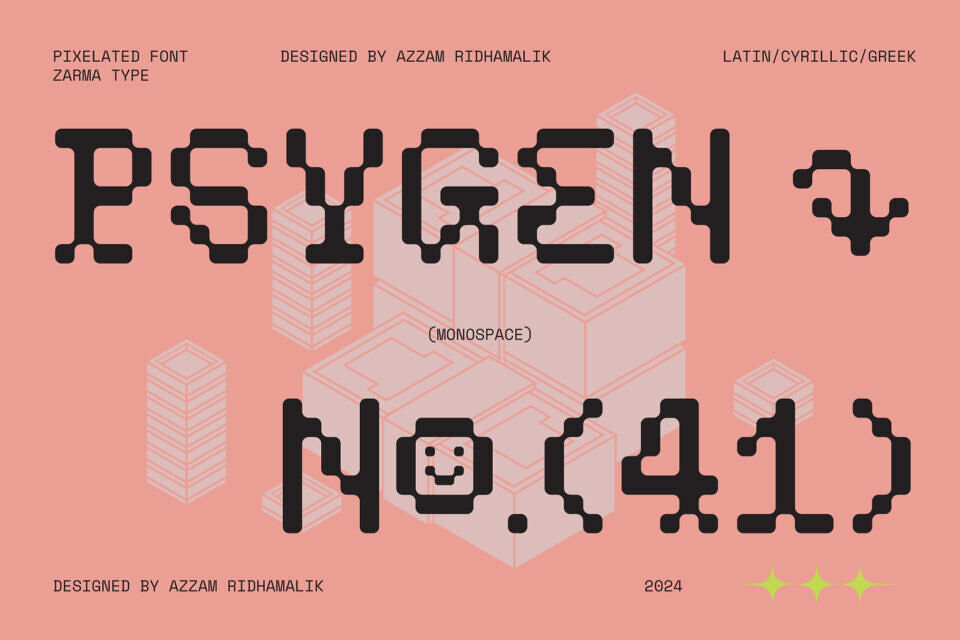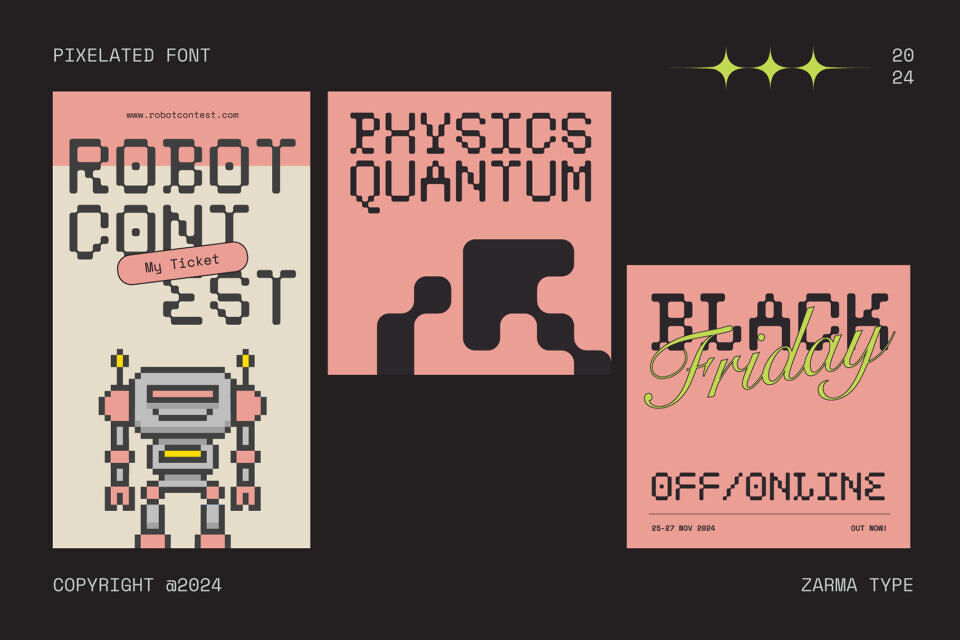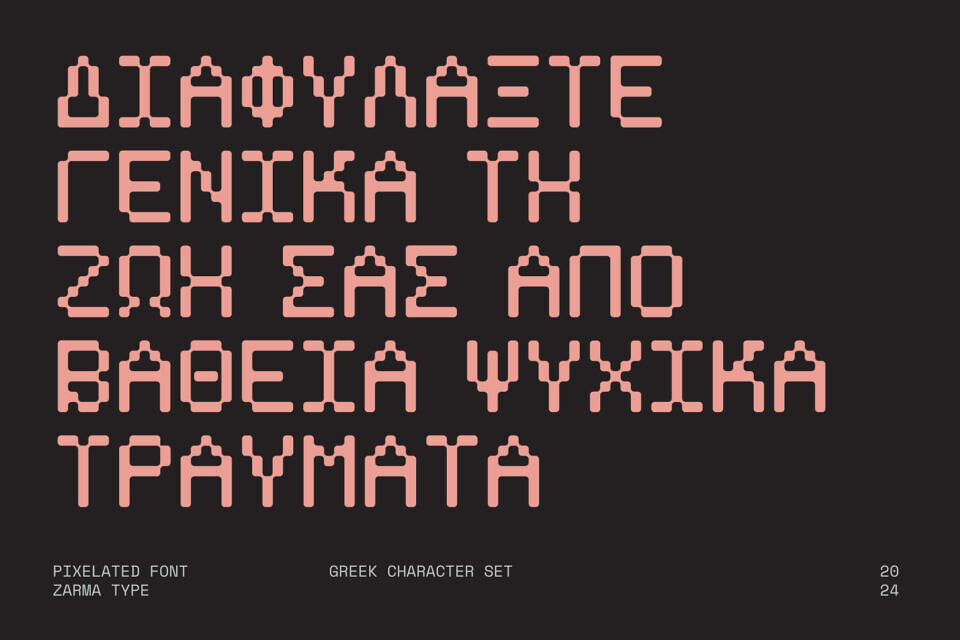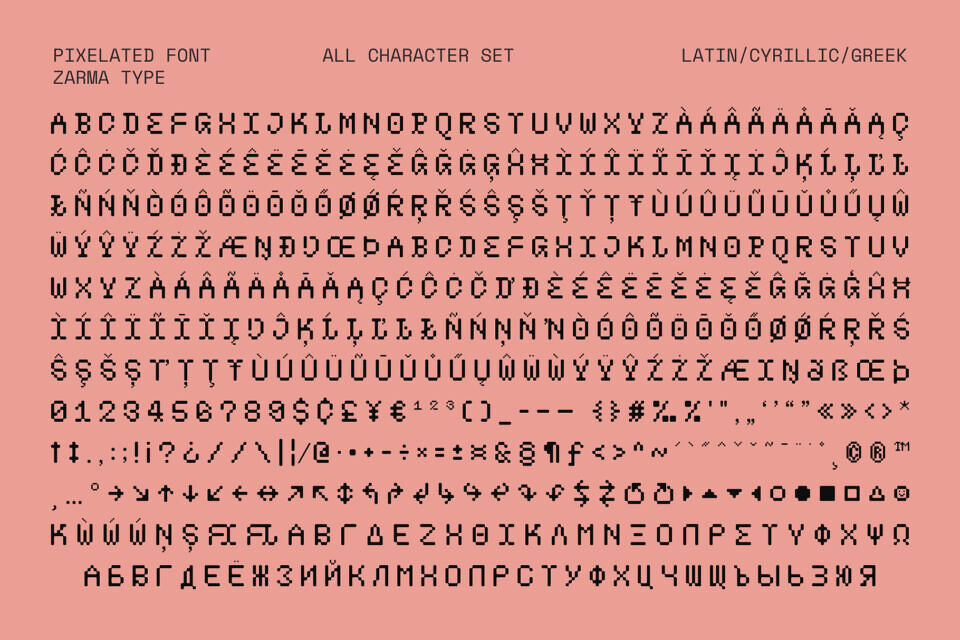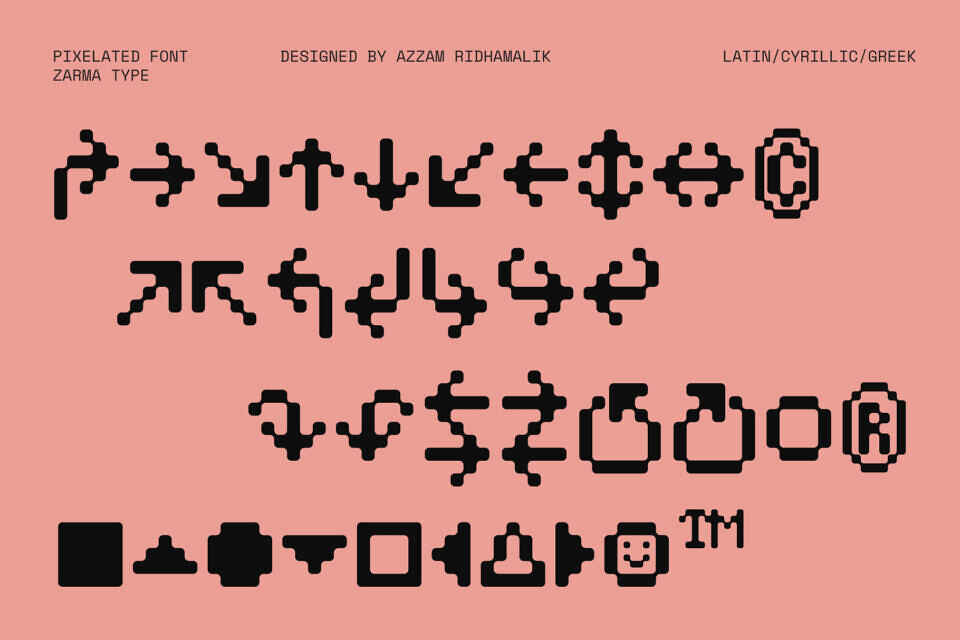
Modern Pixel Font, Psygen is a bold and innovative monospace pixel font designed to add a contemporary edge to retro aesthetics. Tailored for digital creatives, Psygen is versatile across various projects, including gaming, branding, and digital media.